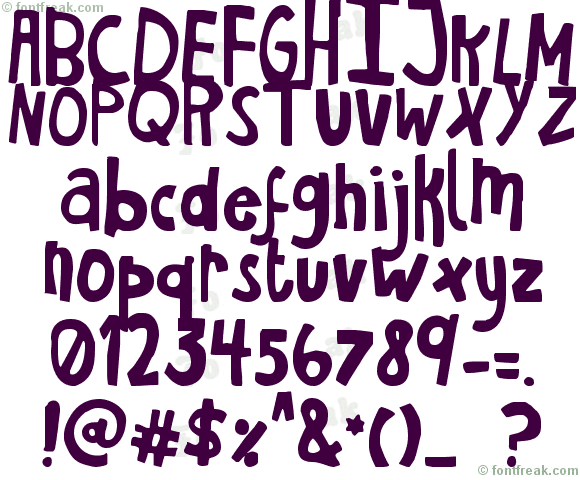
Havent Slept in Two Days Shadow
About Havent Slept in Two Days Shadow
Havent Slept in Two Days Shadow is a distinctive handwritten font designed by Kimberly Geswein. This font falls into the decorative category, showcasing a unique and playful style that captures the essence of personal expression. The strokes are uneven and whimsical, giving it an organic feel that mimics natural handwriting. The contrast in stroke weight is subtle, enhancing its casual charm without compromising readability. The spacing between the letters is generous, allowing the font to breathe and making it suitable for various applications.
This font is particularly well-suited for creative projects such as wedding invitations, where a touch of informality can add warmth and personality. Its playful nature makes it an excellent choice for children's book covers and educational materials, engaging young readers with its friendly appearance. Additionally, Havent Slept in Two Days Shadow is fitting for social media graphics, where a casual yet eye-catching font can elevate posts and stories. Small business owners can also leverage this font for branding elements, from logos to product packaging, to convey a sense of approachability and uniqueness.
What makes this font stand out is its perfect balance of playfulness and readability, making it versatile across various applications. Its unique character adds a personal touch to any design, ensuring that your work leaves a lasting impression.